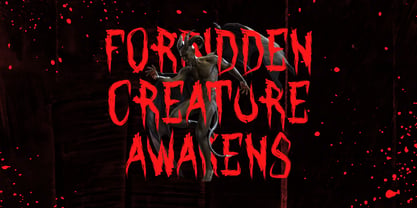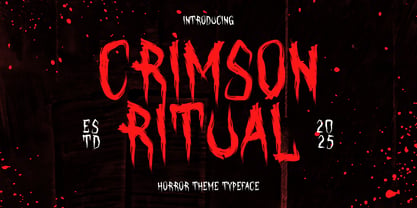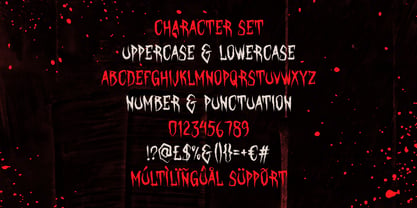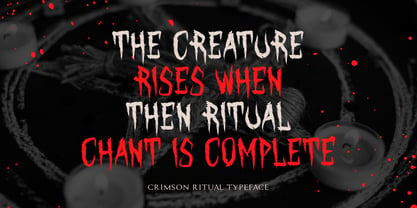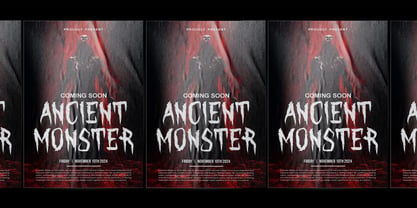
Crimson Ritual
by Shanaf
The Crimson Ritual Font Family was designed by Yesie Erma Yunita and published by Shanaf. Crimson Ritual contains 1 styles. More about this family
Step into the shadows with Crimson Ritual, a terrifying horror-themed font designed to evoke unease and dread at first glance. Its jagged, blood-soaked strokes are meticulously crafted to resemble torn flesh and dripping ink, making it the perfect choice for horror titles, Halloween branding, occult posters, and everything eerie in between. Each letter looks like it has clawed its way out of the darkness, giving your typography an unholy energy. From sinister movie titles to cursed sticker packs, Crimson Ritual delivers bone-chilling flair and supernatural charisma that instantly elevates any macabre project.
The font includes uppercase and lowercase characters, numerals, full punctuation, and multilingual support—ensuring no scream goes unheard. Paired with deep red tones and textured, blood-splattered layouts, the presentation amplifies its use in haunted visuals, spine-chilling cover art, and gothic apparel. Whether you're crafting horror zines, creepy merchandise, or immersive Halloween campaigns, Crimson Ritual embodies the raw essence of the grotesque and occult. Add this display font to your arsenal and conjure fear, one glyph at a time.
Designers: Yesie Erma Yunita
Foundry: Shanaf